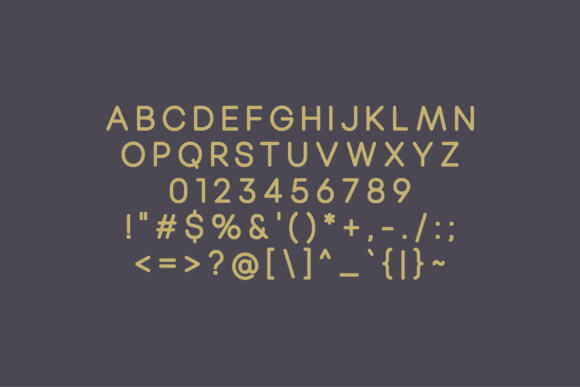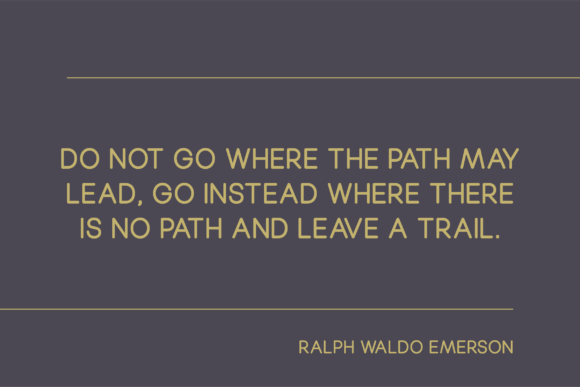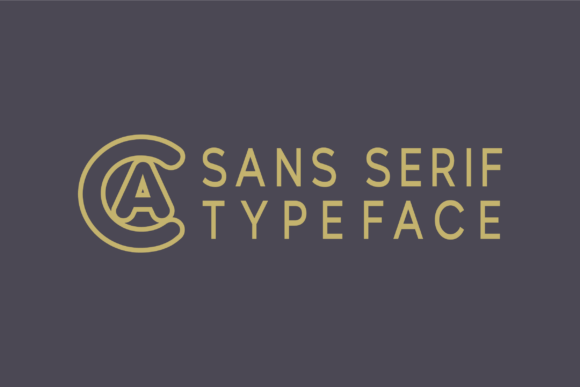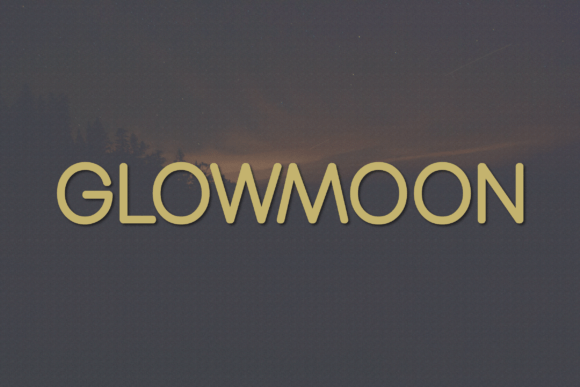
Introducing Glowmoon: The Modern, Classy Sans Serif Typeface
In the world of typography, a good font can make all the difference in the success of a design project. Whether you’re a graphic designer, a crafty DIY enthusiast, or a business owner looking to create a strong brand identity, having the right font at your disposal can elevate your work from ordinary to extraordinary. This is where Glowmoon comes in – a modern, classy sans serif typeface that’s about to become your new go-to font for a wide range of design applications.
What is Glowmoon?
Glowmoon is a sleek and sophisticated sans serif font that’s designed to bring a touch of elegance and refinement to your designs. With its clean lines, simple shapes, and highly legible characters, Glowmoon is the perfect choice for anyone looking to create professional-looking designs that exude confidence and style.
Key Features of Glowmoon
So, what makes Glowmoon such a versatile and valuable font? Here are just a few of its key features:
• Uppercase Characters: Glowmoon includes a full set of uppercase characters, perfect for headings, titles, and emphasis.
• Numbers 0-9: The font also includes a range of numerals, from 0 to 9, making it easy to create numerical content.
• Punctuation and Symbols: In addition to letters and numbers, Glowmoon also includes a variety of punctuation marks and symbols, giving you everything you need to create complex designs.
What Can I Use Glowmoon For?
One of the best things about Glowmoon is its incredible versatility. This font is suitable for a wide range of design applications, including:
• Logos: Create a professional, modern logo that perfectly represents your brand.
• Weddings and Invitations: Use Glowmoon to create beautiful, elegant wedding invitations, save-the-date cards, and more.
• Quotes and Posters: Add a touch of sophistication to your inspirational quotes, posters, and flyers.
• Advertisements: Use Glowmoon to create eye-catching ads that grab attention and drive results.
• Print and Magazines: Glowmoon is perfect for use in print publications, such as magazines, brochures, and catalogs.
Why Choose Glowmoon?
With so many fonts to choose from, why should you choose Glowmoon? Here are just a few reasons:
• Modern and Classy: Glowmoon has a sleek, modern aesthetic that’s perfect for designers and brands looking to create a contemporary image.
• Highly Legible: The font’s clean lines and simple shapes make it highly legible, even at small sizes.
• Extremely Versatile: Whether you’re creating a logo, a poster, or a magazine, Glowmoon is the perfect choice.
In conclusion, Glowmoon is an exceptional sans serif typeface that’s sure to become a valuable addition to your design toolkit. With its modern aesthetic, clean lines, and highly legible characters, Glowmoon is the perfect choice for a wide range of design applications. Whether you’re a seasoned designer or a crafty DIY enthusiast, Glowmoon is sure to help you create stunning designs that impress and inspire.